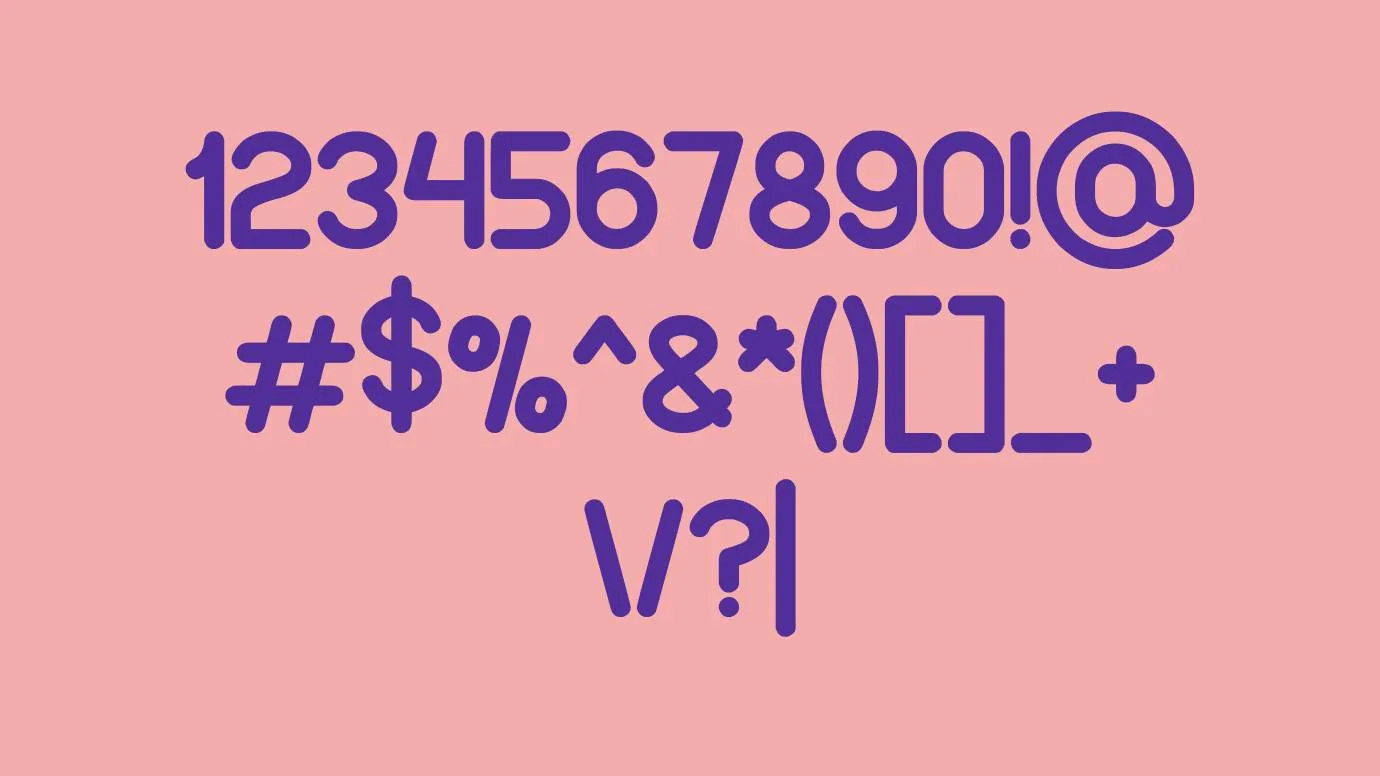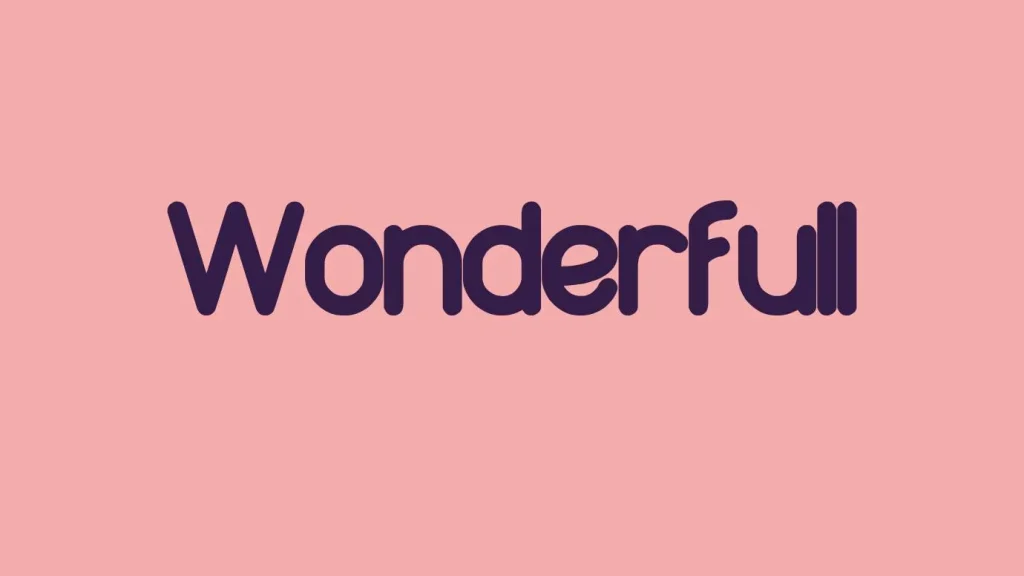
Graphix Line Studio created this amazing text design. Wonderful Font is a cooler typeface family appropriate for a variety of projects. Its visual arts generation tool is quite traditional. Because of its distinctive and fashionable appearance.
A typeface is mainly well-known today. It is being used by numerous developers to produce distinctive and fascinating designs. Your creation will certainly benefit from the use of this classy typeface.
In the past, many experts have utilized it to create websites. The genuine typeface, or any of its sizes and variants, can be used while creating your next website. This will give the design a fashionable and attractive touch.
| Name | Wonderful Font |
| Designer | Graphix Line Studio |
| Style | Sans-Serif |
Usage of Wonderful Font in Brands
Users have used this beautiful design for individual websites or posts. This elegant typeface may also be used for tiny branding, graphic designs, affiliation verifications, etc. Due to its clean layout and excellent symbols, this fantastic font is ideal for building any sort of design with a unique feel.
You may use this typeface, which was chosen by many well-known designers to generate stylish designs. Due to its flawless characters and width, this font has a beautiful design and is incredibly simple to use. By using the simpel font in conjunction with this typeface, you can achieve remarkable displays.
When users try something new, you’ll adore it. For all of your creative tasks, this elegant style is categorically the finest option.
Does Wonderful Font have good readability?
A substantial character set and unique glyphs are included in the font. This typeface is easy to read, and that’s what makes it so good.
Who is the designer of Wonderful Font?
Graphix Line Studio created Wonderful Font. It is a cooler typeface family appropriate for a variety of projects.
What is the wonderful font used for?
Users can use this beautiful design for their individual websites or posts. This elegant typeface may also be used for branding, graphic designs, affiliation verifications, etc.